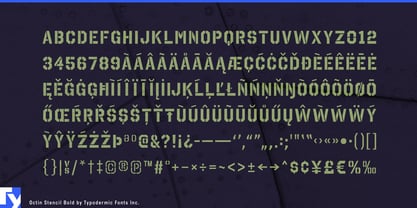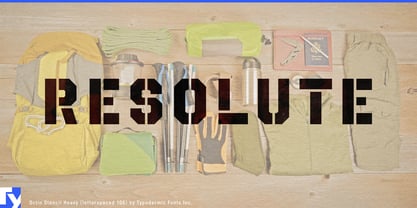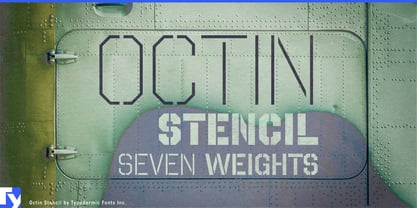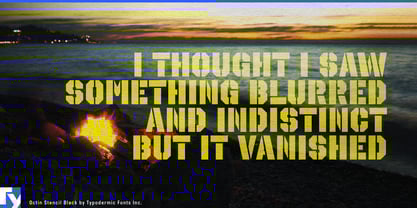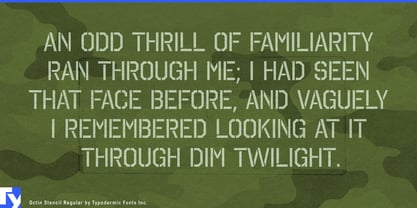
Octin Stencil
The Octin Stencil Font Family was designed by Ray Larabie and published by Typodermic. Octin Stencil contains 7 styles and family package options. More about this family
Octin Stencil brings the grit and precision of industrial lettering into a versatile, modern type family. With seven weights, it scales from light and utilitarian to bold and commanding, giving designers the flexibility to move between subtle function and hard-hitting impact.
Its cut-out details nod to stenciled utility, yet the geometry remains clean and adaptable—equally effective on factory signage, military recruitment posters, tech branding, or construction graphics. Octin Stencil isn’t bound to one industry; it’s a toolset built for clarity and strength wherever toughness needs to be communicated. Supporting most Latin-based European languages, it keeps designs consistent and authoritative across global contexts. As part of the broader Octin family—Sports, College, Prison, Vintage, and Spraypaint—it offers designers a cohesive system of bold, industrial-inspired voices.
When a project calls for a typeface that looks engineered rather than embellished, Octin Stencil delivers. Rugged, practical, and direct, it’s built to last in a world of fleeting design trends.